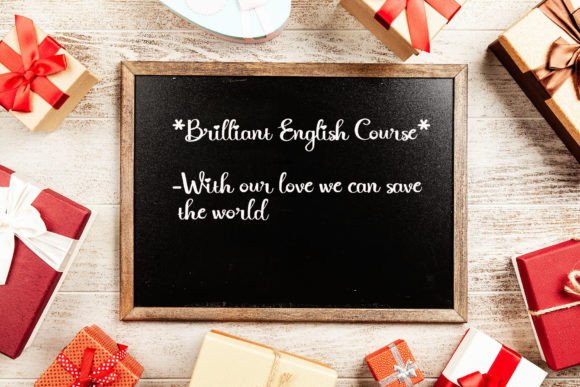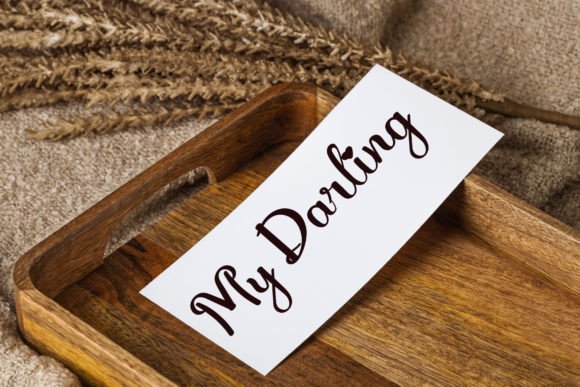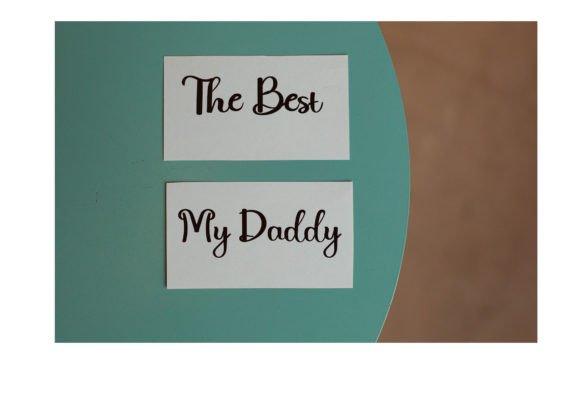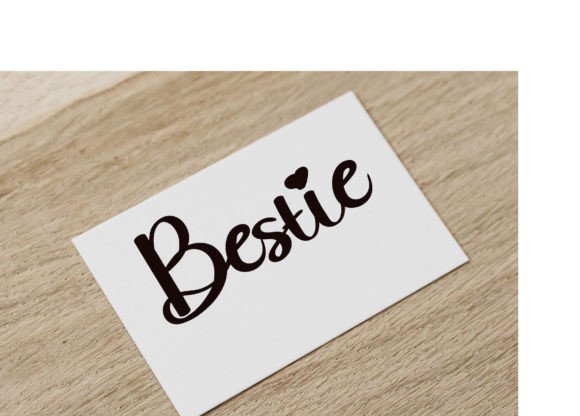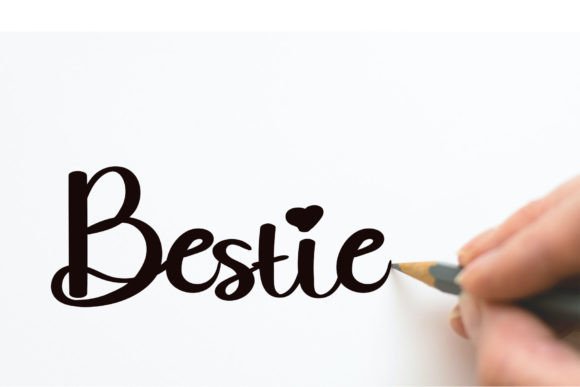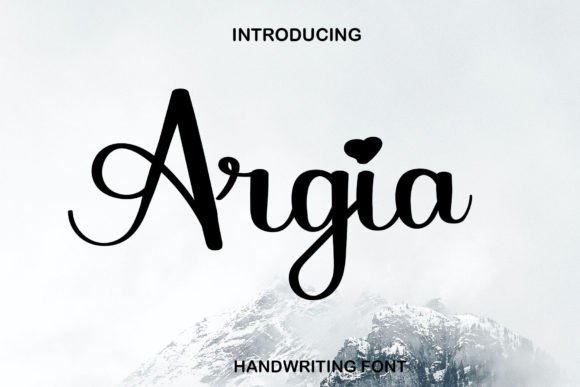
Introducing Argia Font: The Sweet and Beautiful Handwritten Font for Your Design Projects
Are you looking for a font that adds a touch of luxury and elegance to your design projects? Look no further than Argia Font! This sweet and beautiful handwritten font is perfect for designers and crafters who want to create stunning visuals that stand out from the crowd. In this article, we’ll dive into the features and benefits of Argia Font, and explore how you can use it to elevate your design projects.
What is Argia Font?
Argia Font is a modern handwritten font that features characters that dance along the baseline, creating a sense of movement and fluidity. This unique design element gives Argia Font a distinctive and luxurious feel that’s perfect for high-end design projects. The font is designed to be versatile and can be used for a wide range of applications, from branding and advertising to packaging and digital media.
Key Features of Argia Font
- Handwritten style: Argia Font has a beautiful, handwritten style that’s perfect for creating a personal and elegant feel.
- Unique character design: The characters in Argia Font are designed to dance along the baseline, creating a sense of movement and fluidity.
- Luxury feel: Argia Font has a luxurious feel that’s perfect for high-end design projects.
- Versatile: Argia Font can be used for a wide range of applications, from branding and advertising to packaging and digital media.
Benefits of Using Argia Font
So why should you choose Argia Font for your design projects? Here are just a few benefits of using this beautiful font:
- Adds elegance and sophistication: Argia Font adds a touch of elegance and sophistication to any design project.
- Creates a personal feel: The handwritten style of Argia Font creates a personal feel that’s perfect for brands and businesses that want to connect with their audience.
- Stand out from the crowd: Argia Font is a unique and distinctive font that will help your design projects stand out from the crowd.
How to Use Argia Font in Your Design Projects
Using Argia Font in your design projects is easy! Here are a few tips to get you started:
- Pair with other fonts: Argia Font pairs well with other fonts, such as sans-serif fonts like Arial or Helvetica.
- Use for headlines and titles: Argia Font is perfect for headlines and titles, where you want to make a bold statement.
- Experiment with colors: Argia Font looks great in a variety of colors, from bold and bright to soft and pastel.
- Use for branding and advertising: Argia Font is perfect for branding and advertising projects, where you want to create a luxurious and elegant feel.
Argia Font is a beautiful and luxurious handwritten font that’s perfect for designers and crafters who want to create stunning visuals. With its unique character design and elegant feel, Argia Font is sure to add a touch of sophistication to any design project. Whether you’re working on a branding project, creating a website, or designing a piece of packaging, Argia Font is a great choice. So why not give it a try and see how it can elevate your design projects?